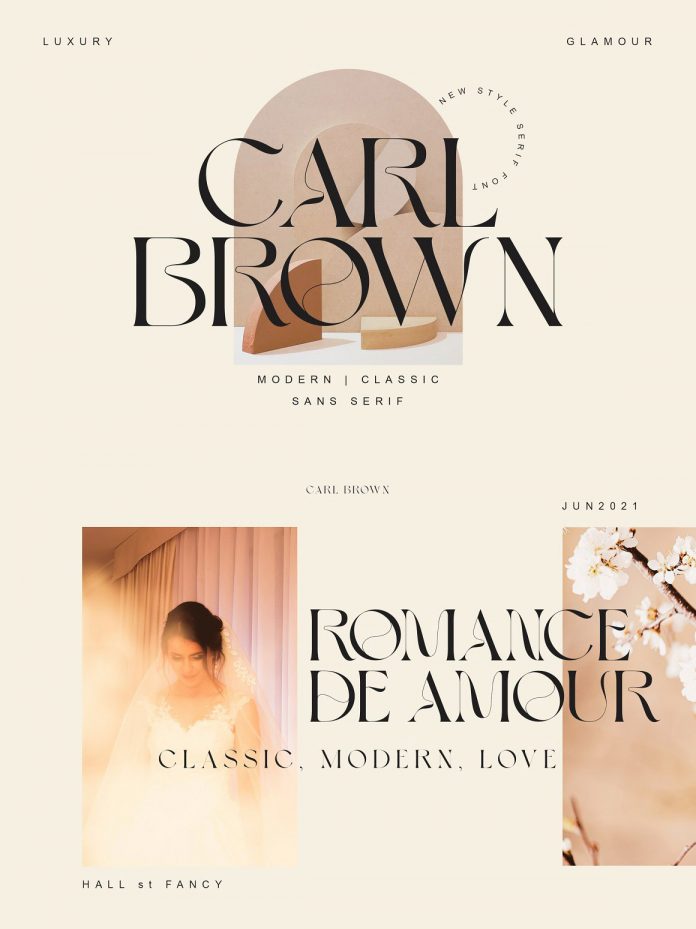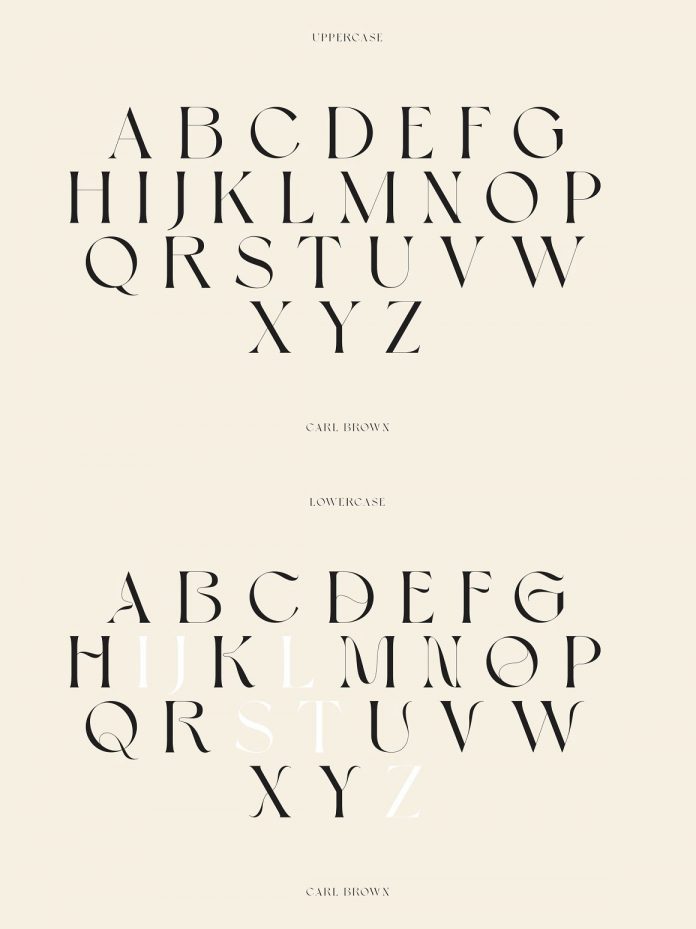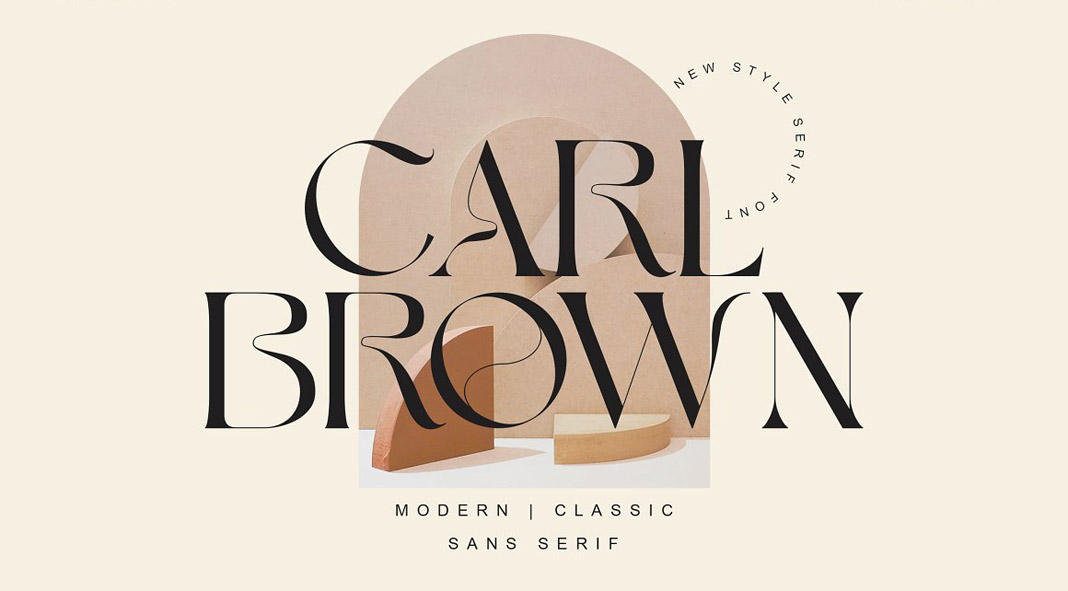
Carl Brown, a modern, vintage-inspired serif font for fun and elegant typography.
Take a look at Carl Brown, a super-stylish serif font that comes with uppercase letters, numerals, and a large range of punctuation. This new font is inspired by elegant vintage typography. Carl Brown was designed for use in poster design, web design, branding, illustrations, badges, just to name a few.